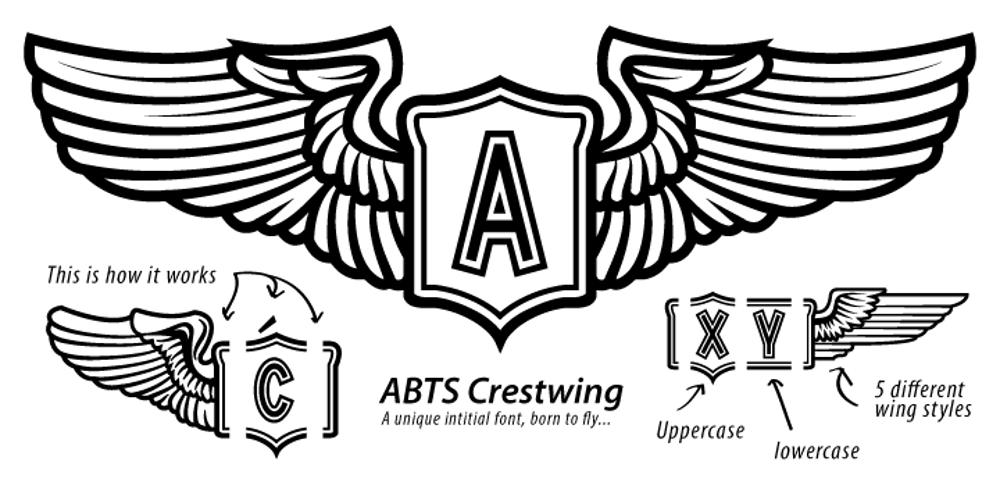
ABTS Crestwing Font Family was designed by Jay Hilgert and published by Albatross. ABTS Crestwing contains 1 styles and family package options. ABTS Crestwing is a unique initial font with extraordinary flexibility and beauty. There are 5 wing styles to choose from. The wings are accessed through typing numbers. The 5 pairs are: [1, 2] [3, 4] [5, 6] [7, 8] & [9, 0]. The odd numbers in the pairs will give you a left wing, and the even numbers will give you a right wing. The letters are separated into upper and lowercase. Uppercase has a crest point, the lowercase does not, giving you the ability to string letters together to form words and phrases, and place the tip of the crest above the letter of your choosing. Optional endcaps are available using the brackets on your keyboard “[, ].” This allows you to cap off a word if you wish not to use a wing to do so. Crestwing is both beautiful and unique, and works best at large sizes.